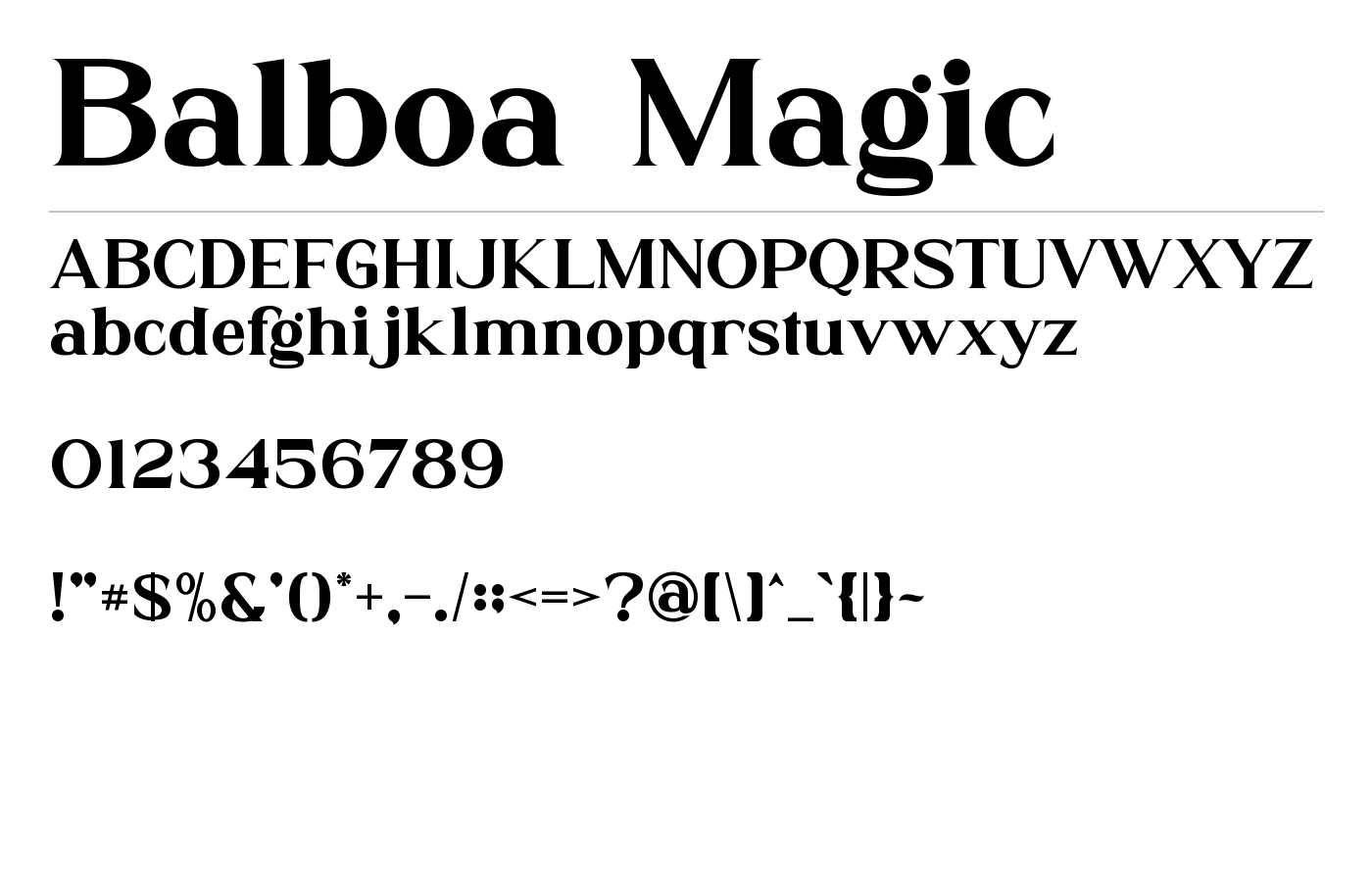
Balboa Magic is an elegant serif font with a classic modern feel, featuring high contrast between thick and thin strokes and sharp, bracketed serifs that give it a refined yet slightly playful character. Its distinctive double-story lowercase letters and unique details, like the angled terminals and subtle curves, make it well-suited for sophisticated branding, editorial headlines, and luxury packaging where a timeless and stylish impression is desired. This font works best in larger sizes to showcase its elegant stroke contrasts and intricate shapes.
Balboa Magic Font
About Balboa Magic Font